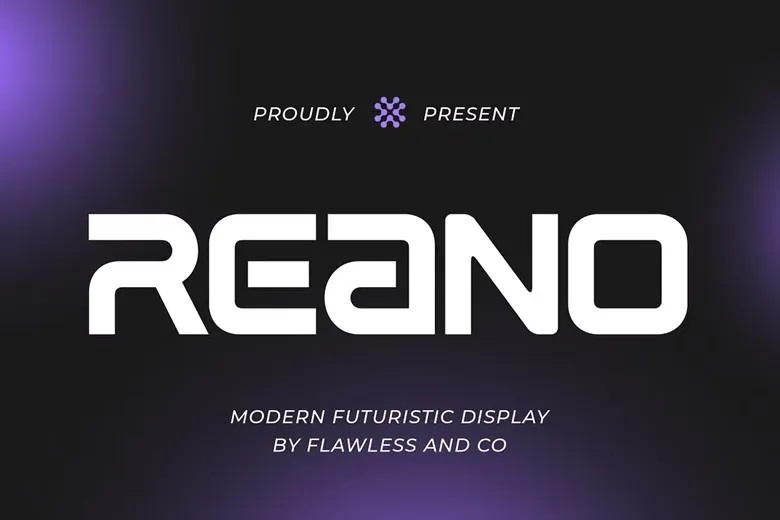
Reano Font
Reano is a modern display typeface designed to give a clean, high-tech look. Its geometric shapes and sharp edges create a digital style that stands out right away. Reano is made to stand out, making it a great choice for bold headlines and modern branding that need a sleek, fresh look.
You can use this font in tech designs or creative projects to add a modern, futuristic feel that is both strong and up-to-date.
Reano Display Font